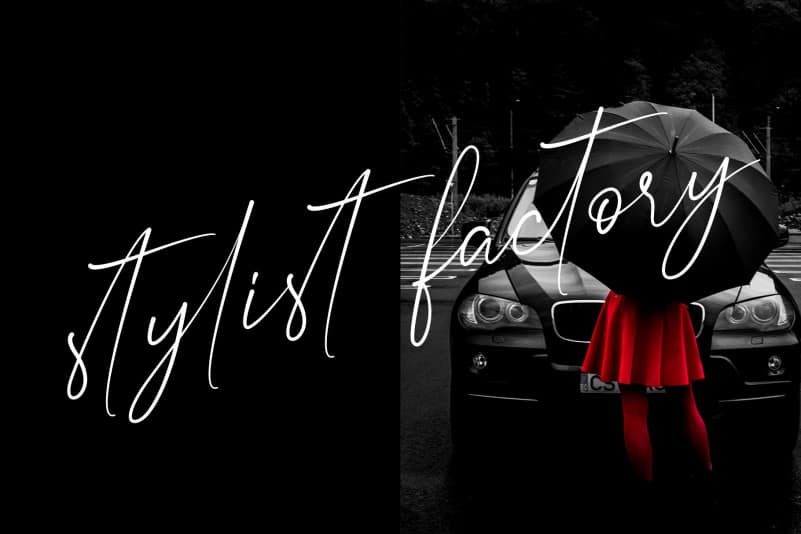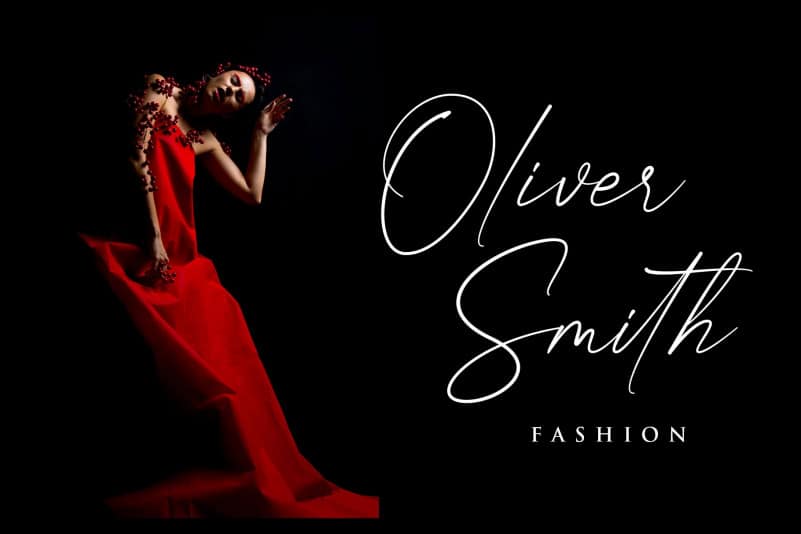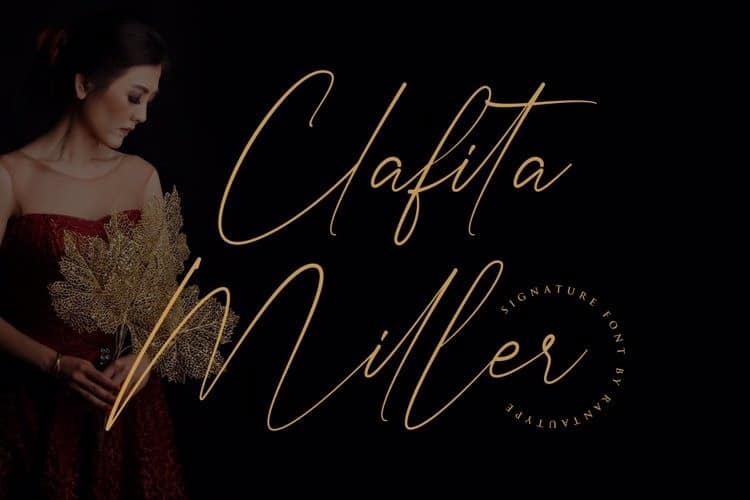
Clafita Miller Script Font is the ideal typeface for organic product wine branding and packaging. Made from font designer named Rantautype. This font looks elegant, luxury, premium, modern, readable, stylish, feminine, girly, catchy and easy to use. Clafita Miller is the great choice for watermark on photography, signature or signature logo design, quotes, album cover, magazine, business card and many other design project. Clafita Miller here to make your work to high level!!!